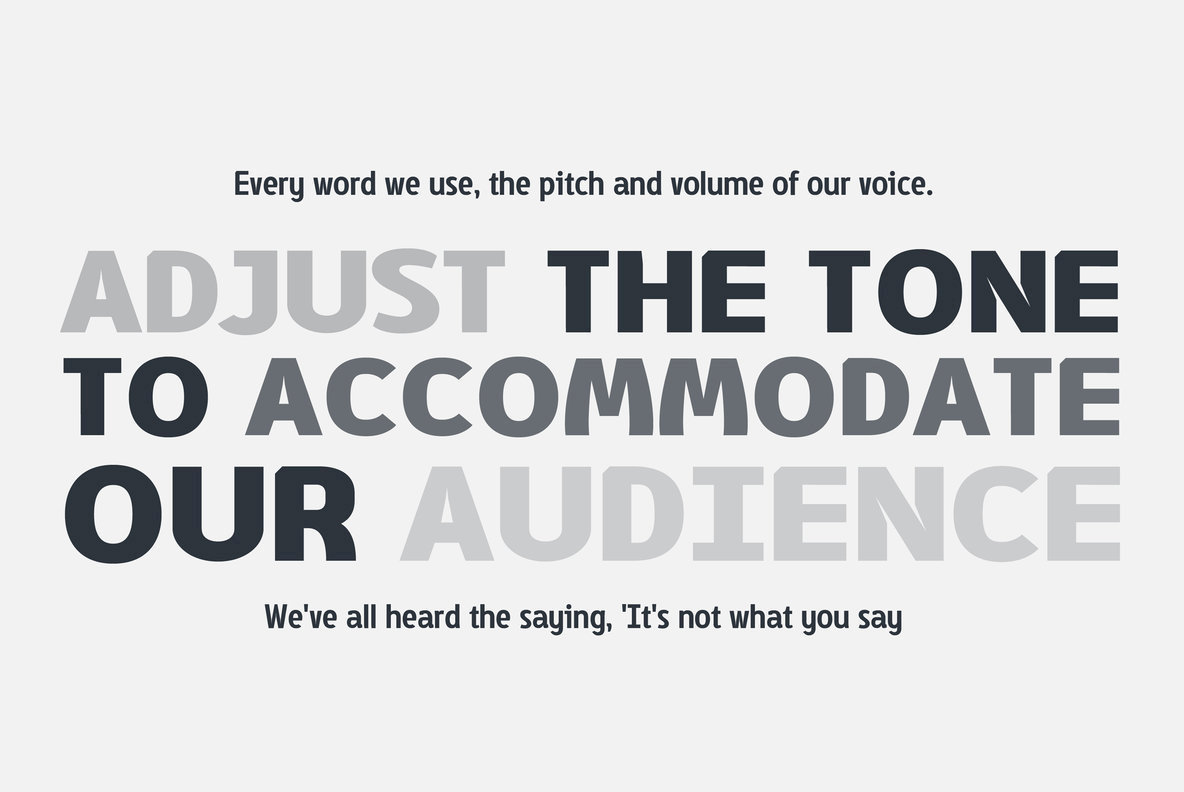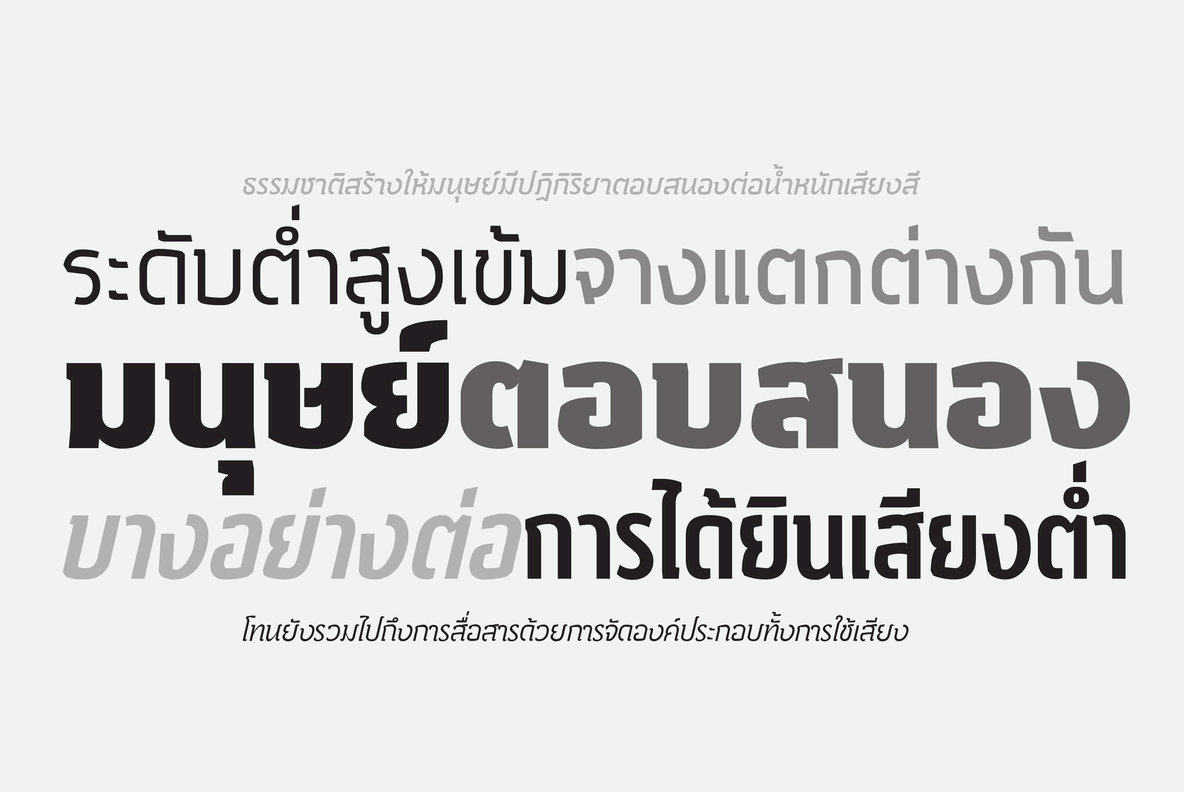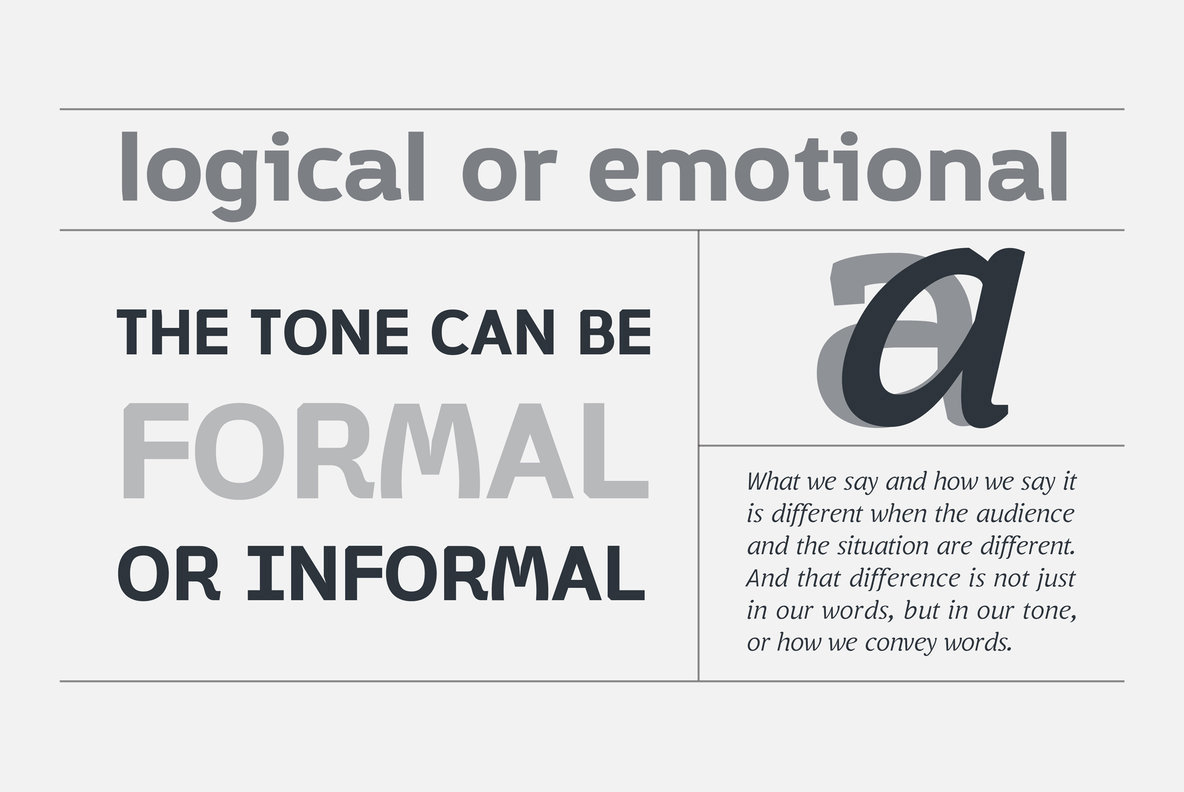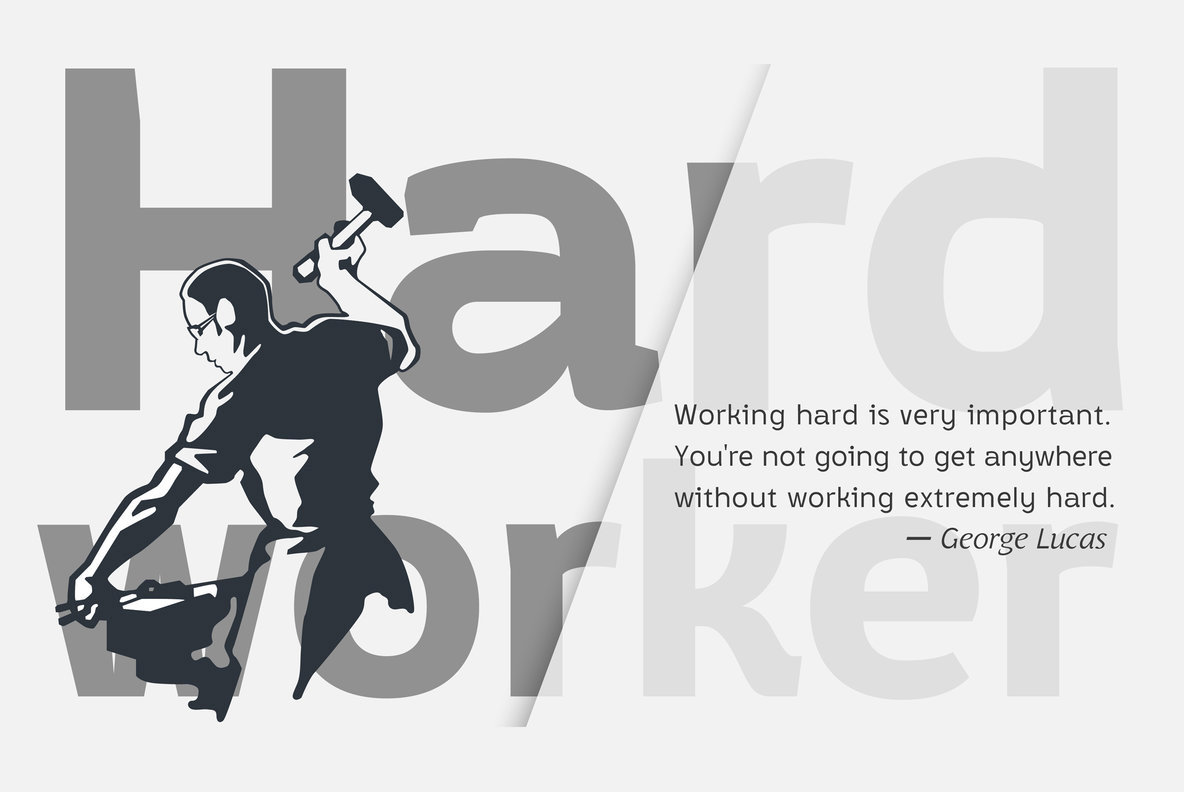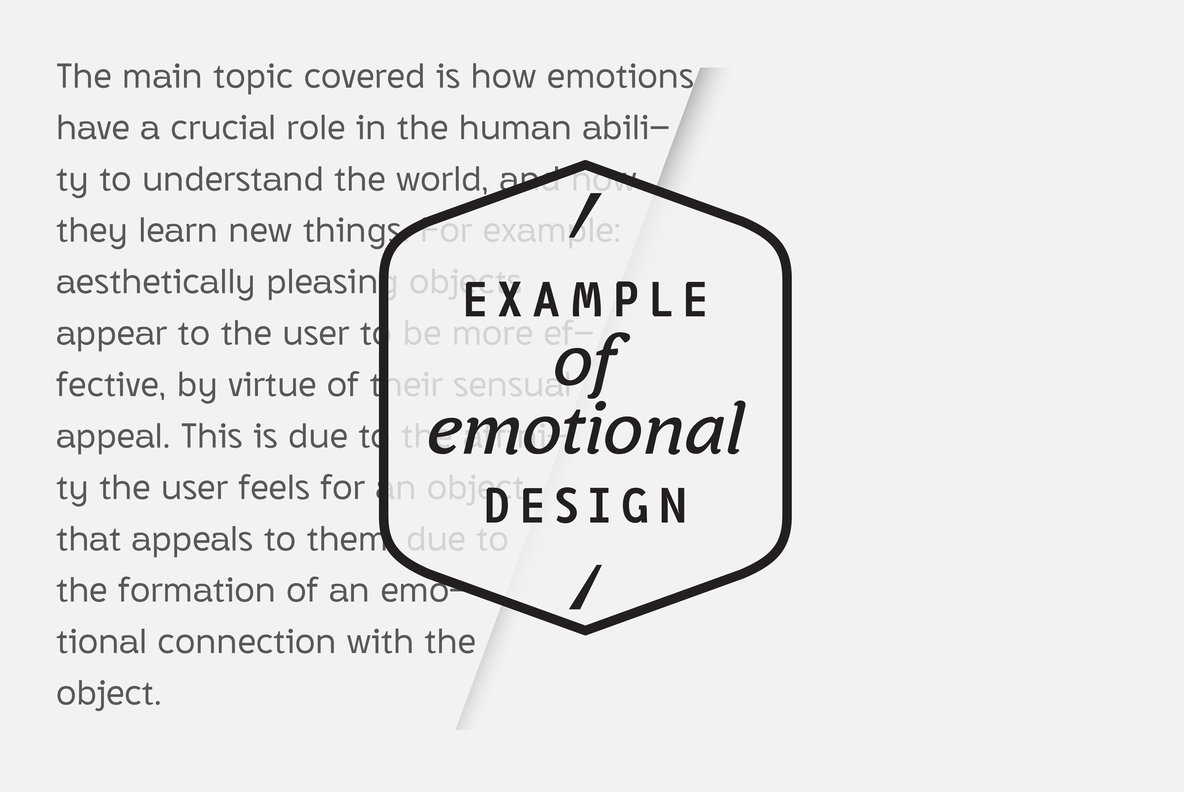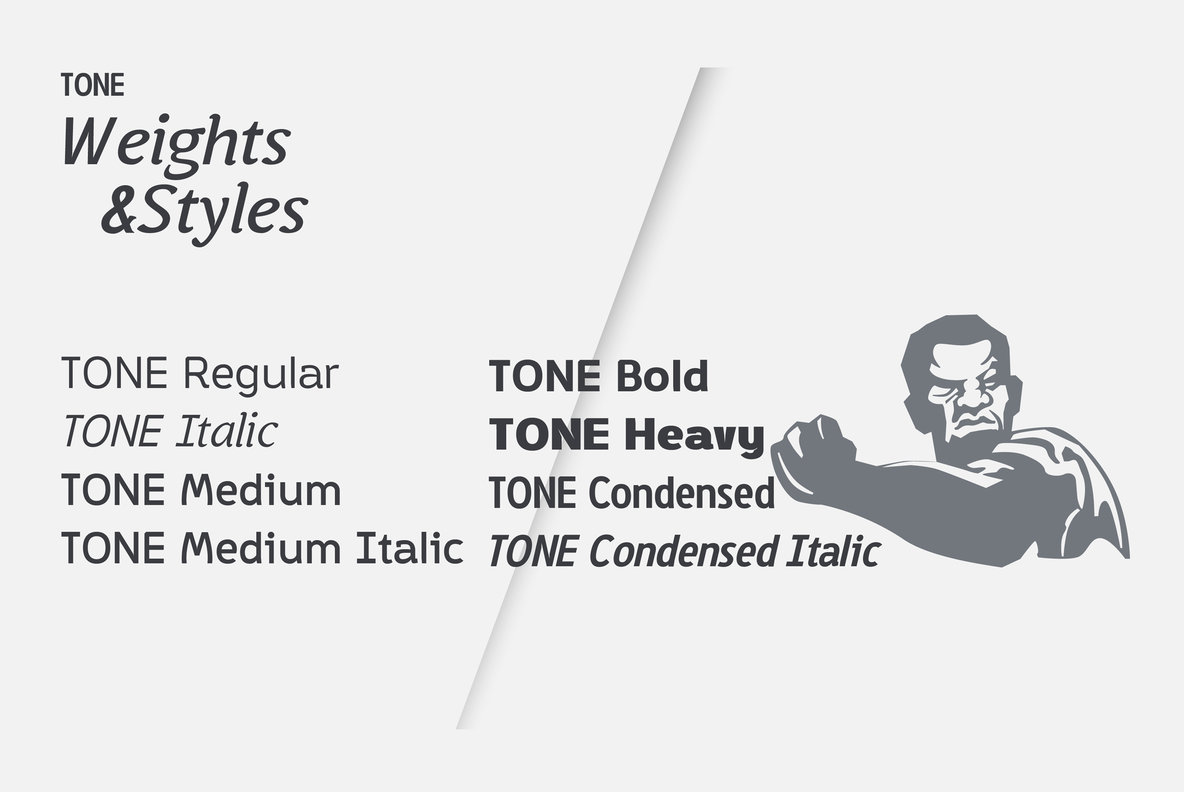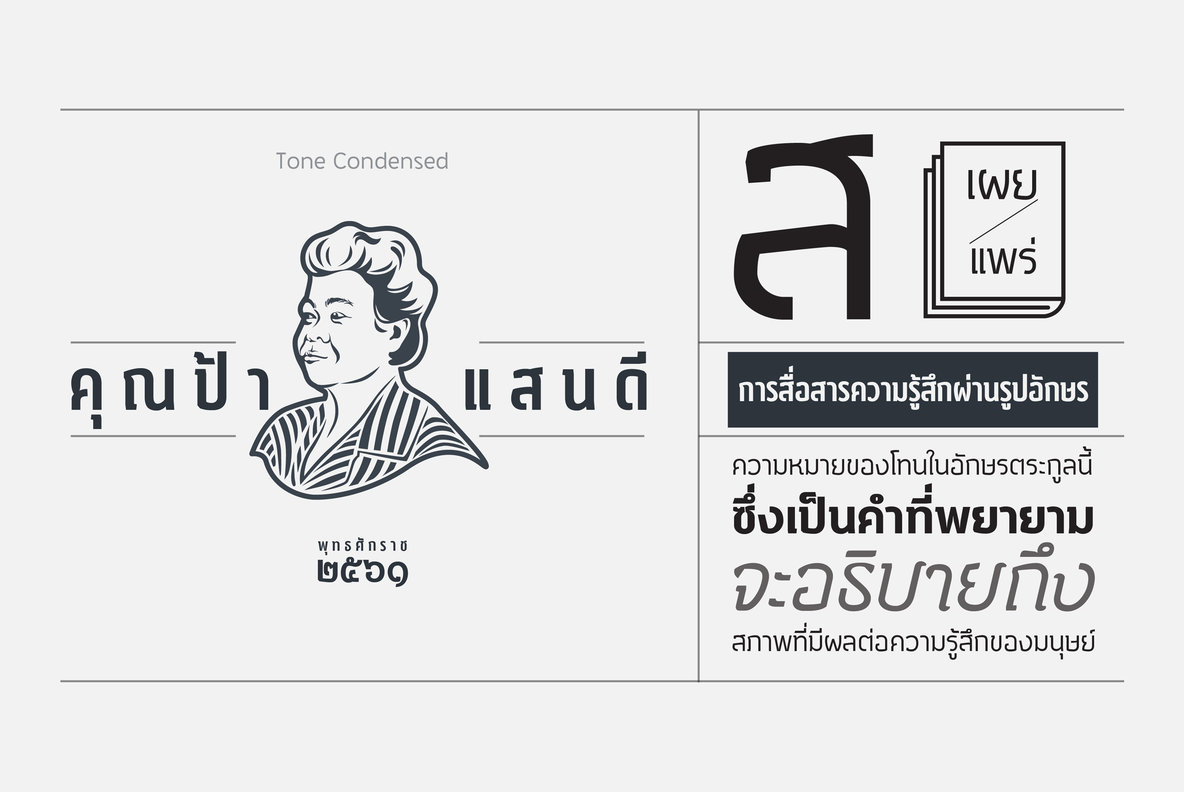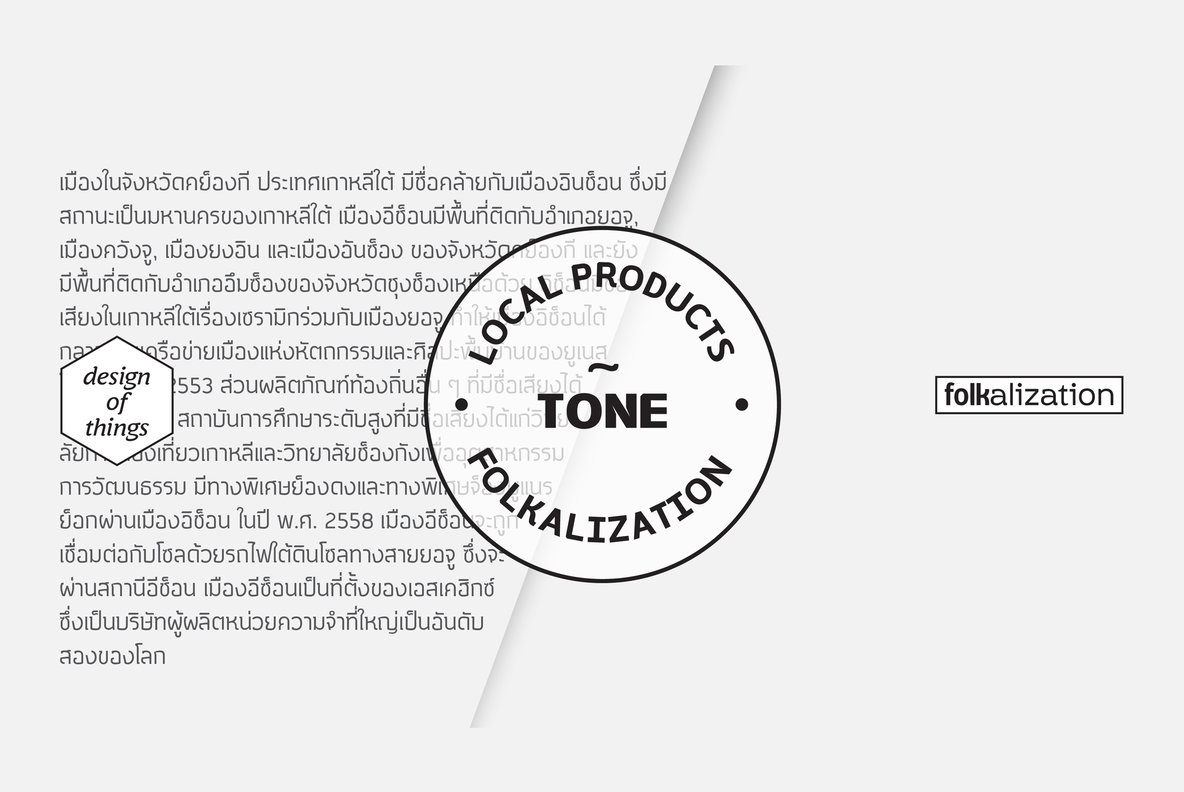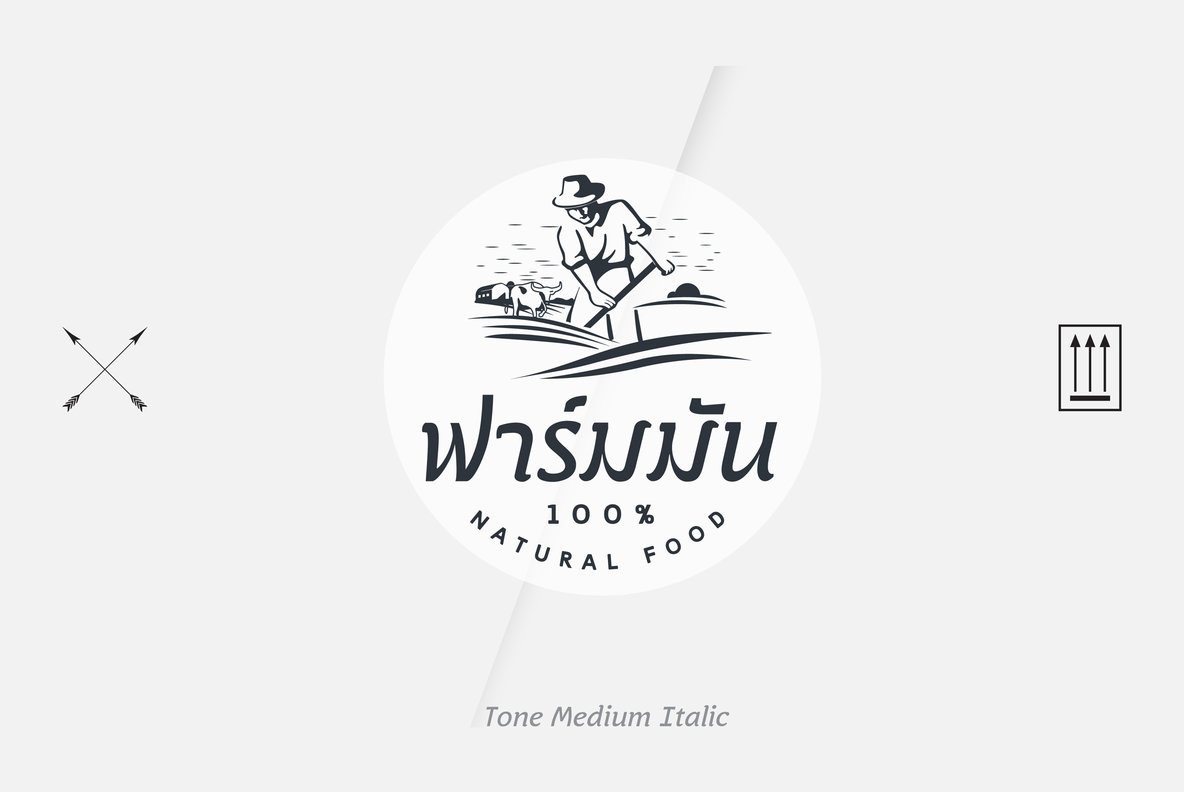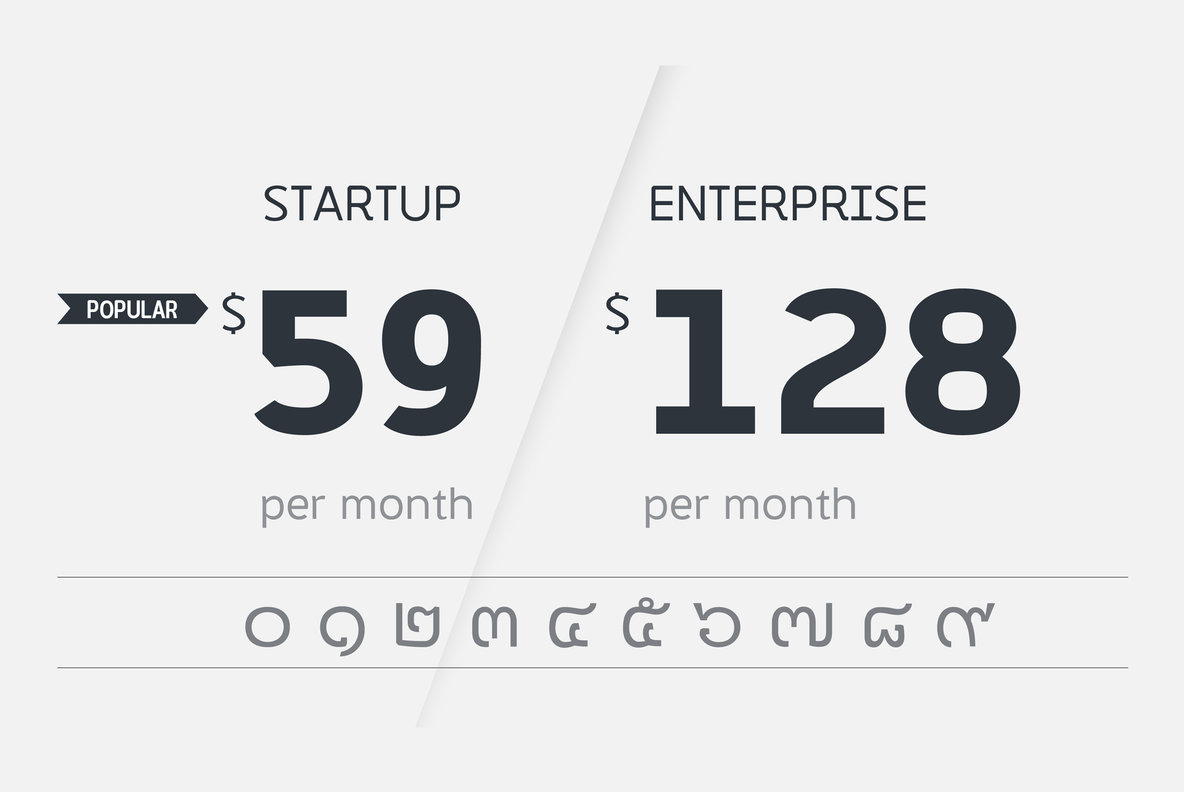
TONE Font
Tone is a strong and sophisticated sans serif font family design. Inspired by the personality of contemporary fonts, it's sturdy uncompromising style is felt through the controlled letterforms and modern tone. A balance of lines and smooth curves. Designed for a variety of sounds.
Tone works great in any branding, logos, print, magazines, films. The different weights and styles give you full range to explore a whole host of applications, It’s give a real modern mood and tone to any project.